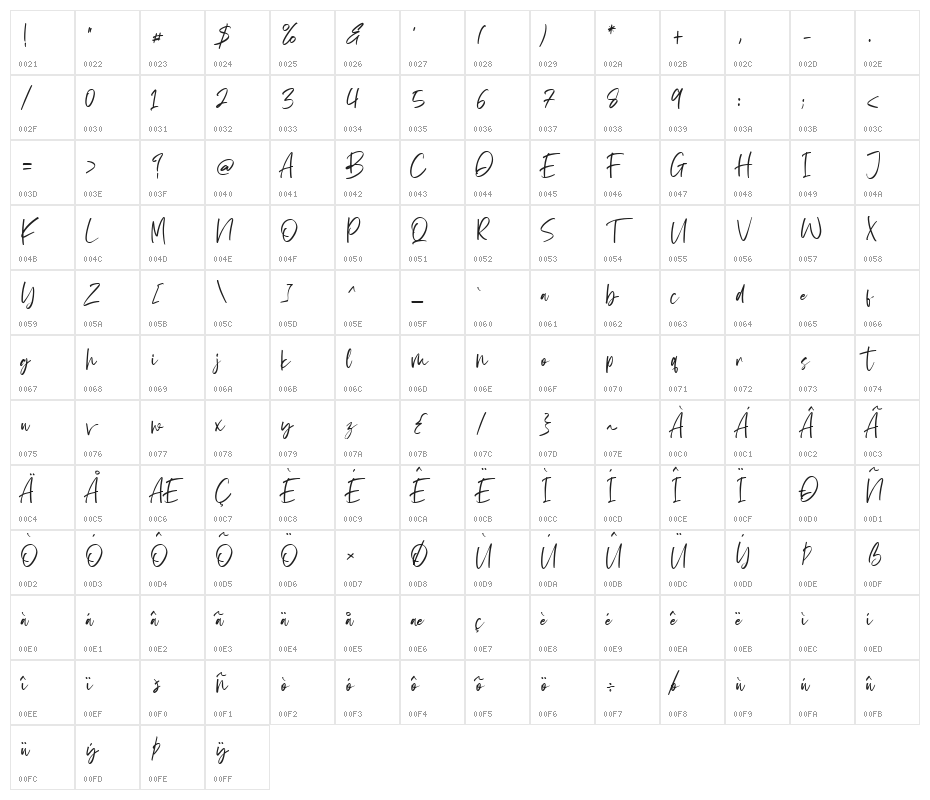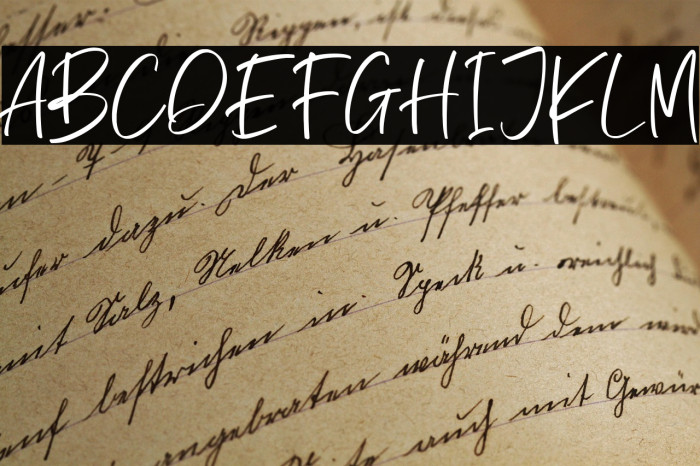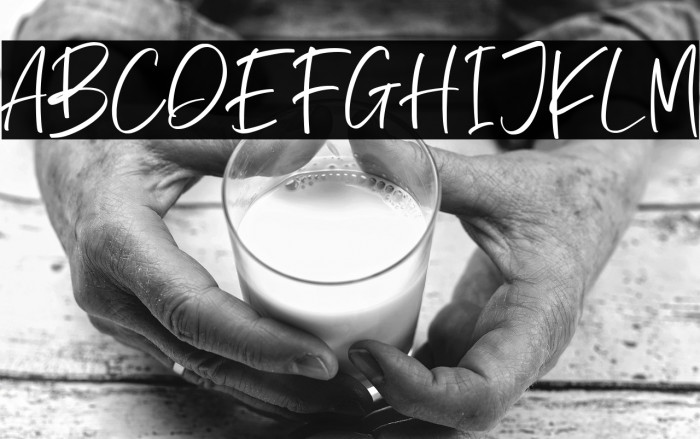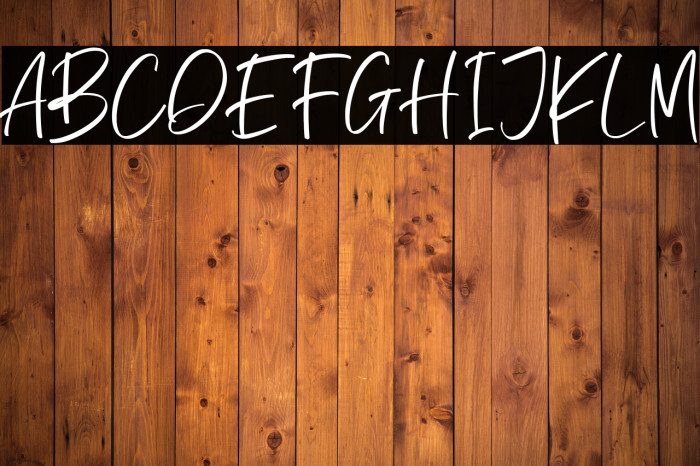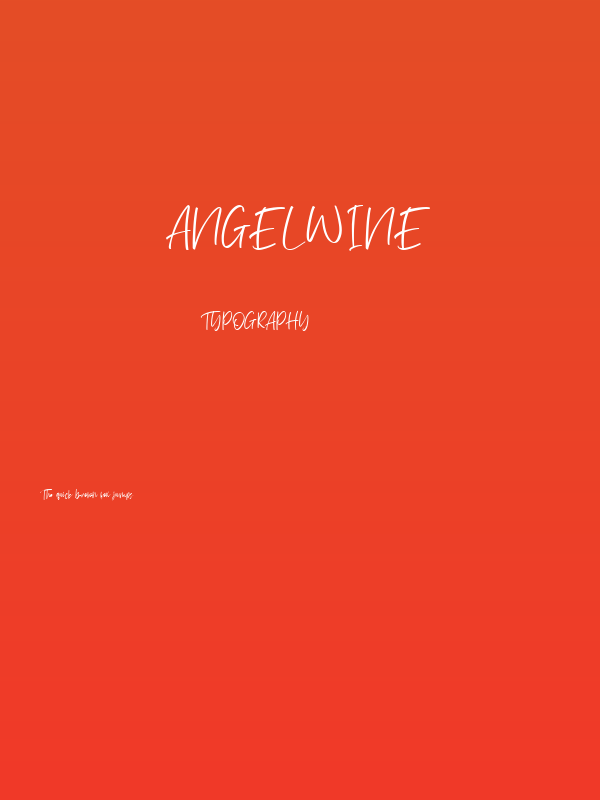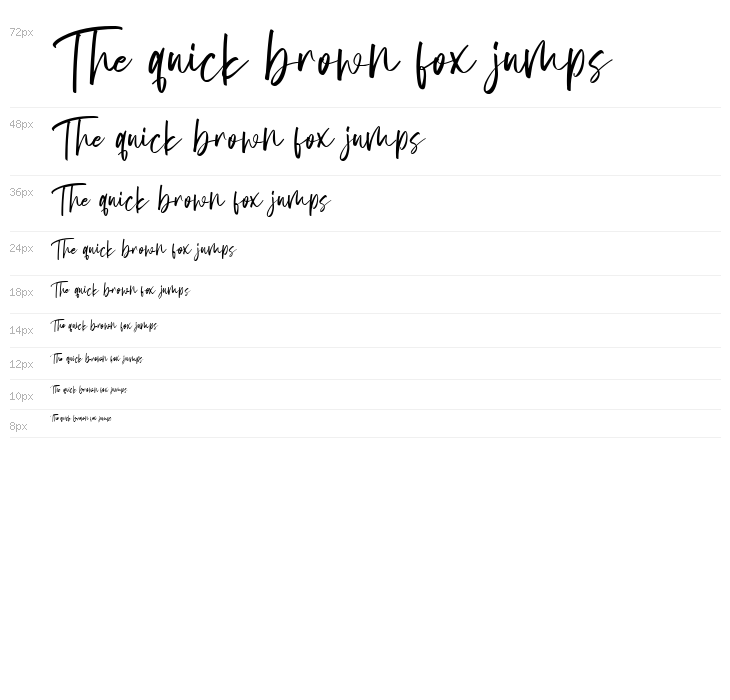
Angelwine Font
Angelwine Description
This font features a lively and expressive handwritten style, characterized by its fluid and dynamic strokes. The uppercase letters are bold and slightly slanted, giving a sense of movement and energy. The lowercase letters maintain a consistent flow, with some characters extending below the baseline, adding to its casual and informal appearance. The numerals are well-integrated, matching the overall aesthetic with their playful curves. Special characters are thoughtfully designed, complementing the font's overall style. This font is perfect for projects that require a personal touch, such as invitations, greeting cards, or branding materials.
| Overall Style | Casual and expressive |
| Proposed Projects | Ideal for invitations, greeting cards, branding, and personal projects. |